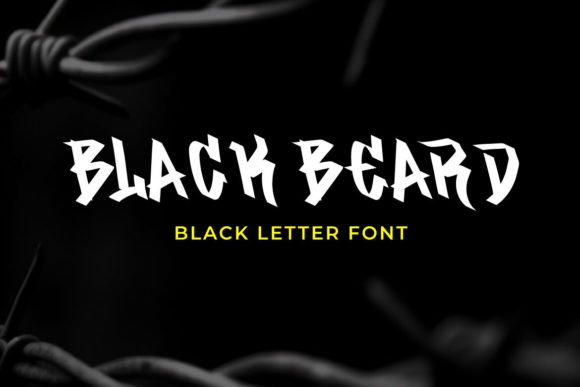
Unleash the Swashbuckling Spirit with Black Beard Font
Are you a designer or crafter looking for a bold and eye-catching font to add a touch of piracy to your creative projects? Look no further than the Black Beard font, a striking black letter display font that’s perfect for making a statement. In this article, we’ll dive into the world of Black Beard font, exploring its features, uses, and benefits, as well as providing tips and inspiration for incorporating it into your work.
What is Black Beard Font?
**Black Beard** is a black letter display font, inspired by the infamous pirate captain, Blackbeard. This font is designed to evoke the sense of adventure, danger, and mystery associated with the high seas and the golden age of piracy. With its bold, dramatic lettering, Black Beard font is sure to grab attention and add a touch of swashbuckling flair to any project.
Features of Black Beard Font
So, what makes Black Beard font so special? Here are just a few of its key features:
- Bold and dramatic lettering: Black Beard font features thick, expressive lines and sharp serifs, giving it a bold and commanding presence.
- Black letter style: Inspired by traditional black letter fonts, Black Beard features intricate flourishes and ornate details.
- Highly legible: Despite its bold and ornate design, Black Beard font is surprisingly easy to read, making it perfect for use in a variety of contexts.
- Versatile: Black Beard font can be used in a wide range of projects, from comic books and posters to logos and social media content.
Uses for Black Beard Font
So, what can you use Black Beard font for? The possibilities are endless! Here are just a few ideas to get you started:
- Comic books and graphic novels: Add a touch of piracy to your comic book or graphic novel with Black Beard font.
- Posters and flyers: Create eye-catching posters and flyers for events, promotions, or products with Black Beard font.
- Logos and branding: Use Black Beard font to create a bold and memorable logo for your business or brand.
- Social media content: Add a touch of personality to your social media posts with Black Beard font.
- Book titles and covers: Use Black Beard font to create striking book titles and covers that will grab attention.
- Advertisements: Add a touch of drama and flair to your advertisements with Black Beard font.
Tips for Using Black Beard Font
Here are a few tips for getting the most out of Black Beard font:
- Use it sparingly: Black Beard font is bold and attention-grabbing, so use it sparingly to avoid overwhelming your design.
- Pair it with contrasting fonts: Pair Black Beard font with contrasting fonts to create visual interest and hierarchy.
- Experiment with colors and textures: Add depth and interest to your design by experimenting with different colors and textures.
Inspiration and Examples
Need some inspiration for using Black Beard font? Here are a few examples of how you could use this font in your designs:
- Pirate-themed branding: Use Black Beard font to create a bold and memorable logo for a pirate-themed business or brand.
- Comic book covers: Use Black Beard font to create striking comic book covers that will grab attention.
- Poster design: Use Black Beard font to create eye-catching posters for events, promotions, or products.